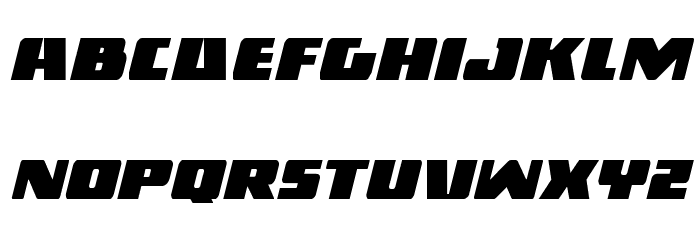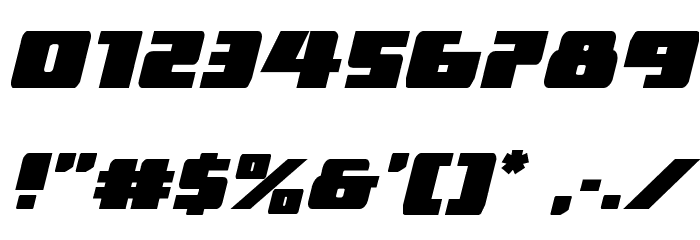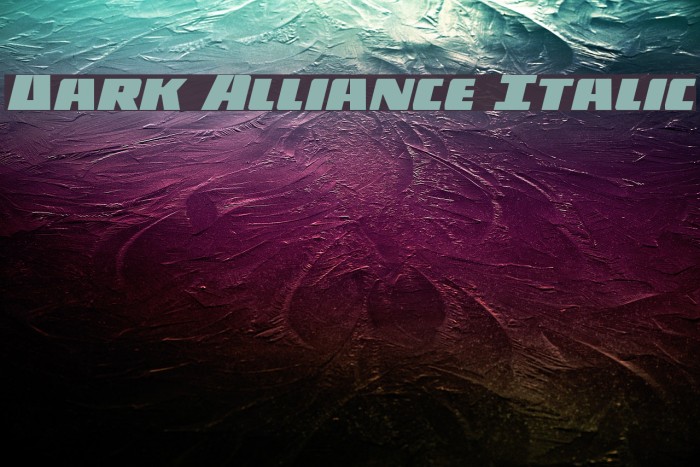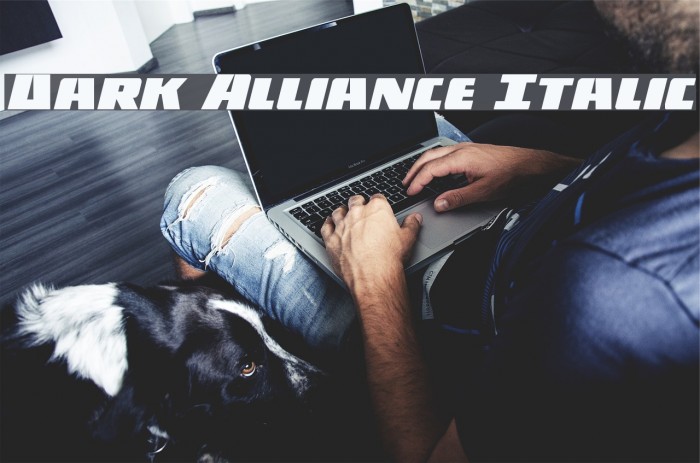
Dark Alliance Italic Font
This font features a bold and dynamic style with a futuristic and angular design. The characters are italicized, giving them a sense of motion and energy. The uppercase letters are particularly striking, with sharp edges and a strong presence. The numbers and special characters maintain the same boldness, ensuring consistency across all elements. The overall look is modern and impactful, making it suitable for projects that require a strong visual statement.
A bold, italicized font with a futuristic and angular design.
- Proposed Projects: Ideal for video game titles, movie posters, sports branding, and any project needing a bold, modern look.